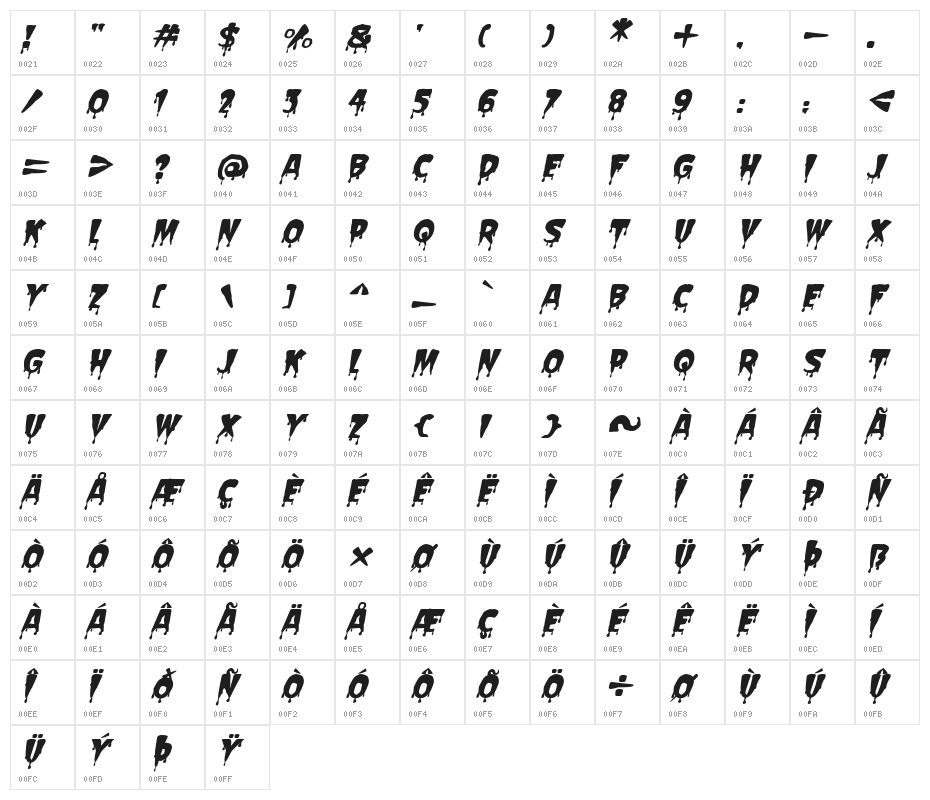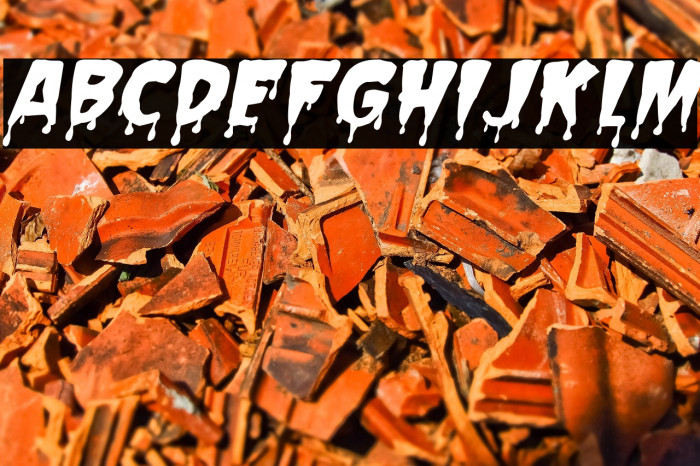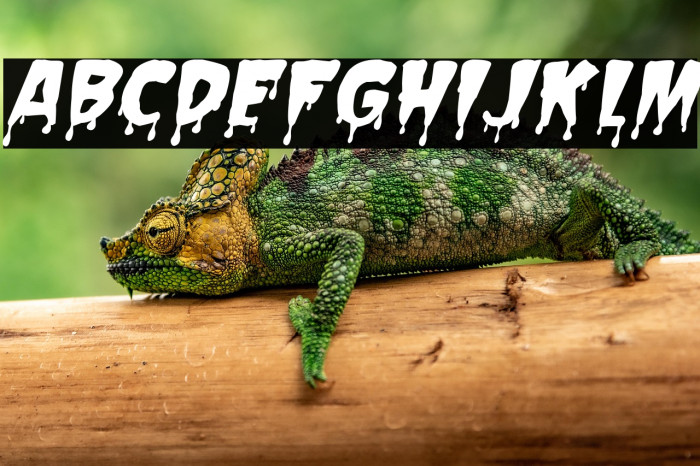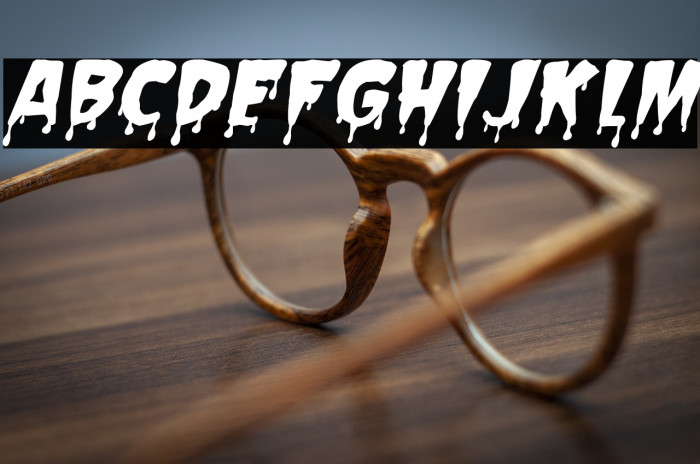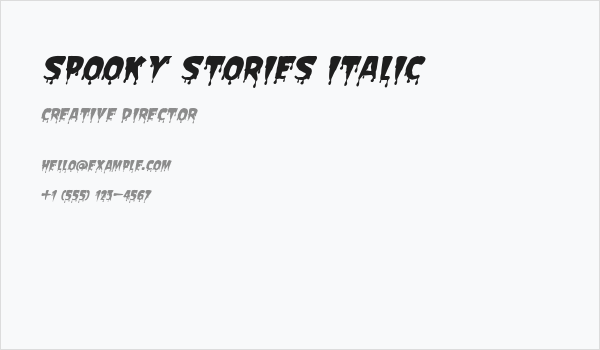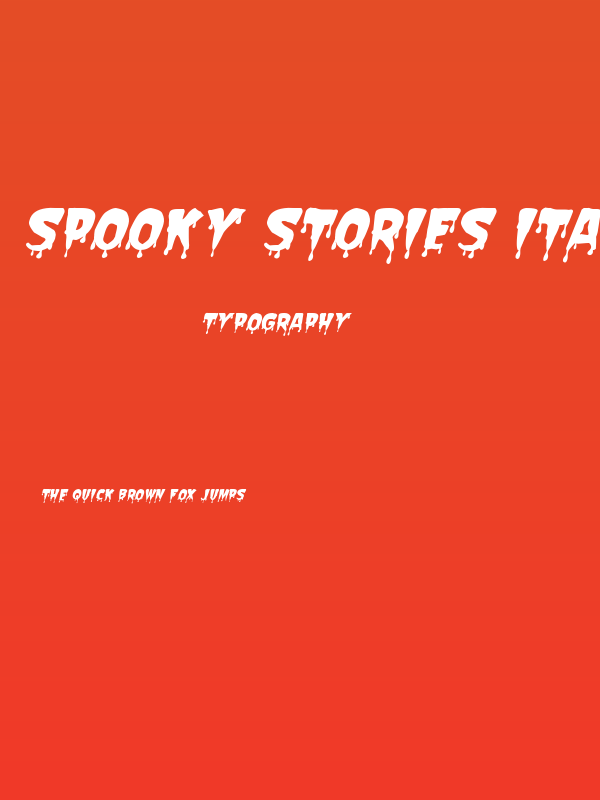
Spooky Stories Italic Font
Spooky Stories Italic Description
This font exudes a chilling and eerie vibe, perfect for Halloween or horror-themed projects. The letters appear as if they are dripping, reminiscent of melting wax or blood, adding a sense of movement and unease. The uppercase and lowercase characters maintain a consistent style, with exaggerated serifs that enhance the spooky effect. Numbers and special characters follow the same dripping motif, ensuring a cohesive look across all text elements. The overall design is bold and eye-catching, making it ideal for grabbing attention in any setting.
| Proposed Projects | Ideal for Halloween invitations, horror movie posters, haunted house flyers, and spooky-themed merchandise. |